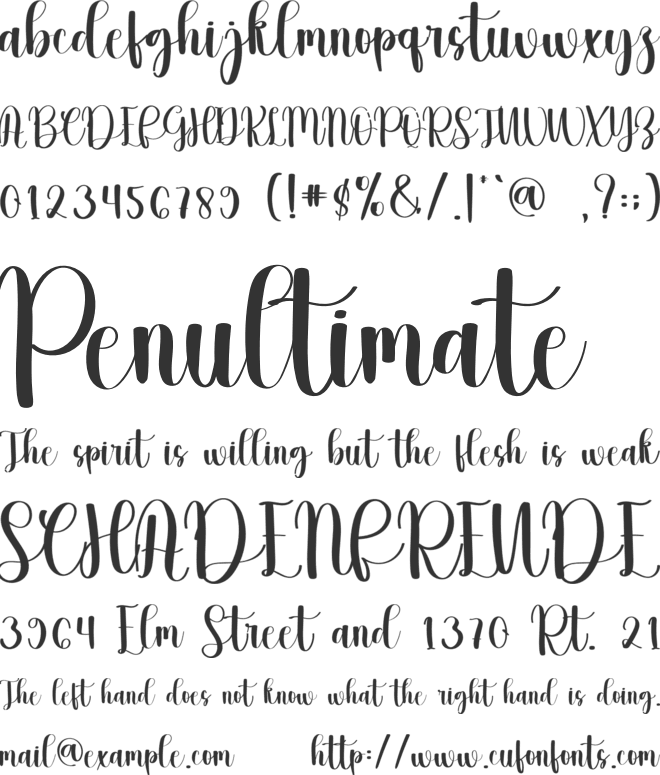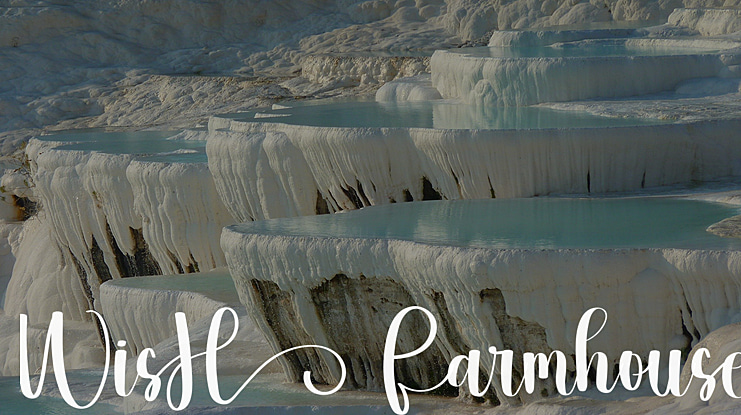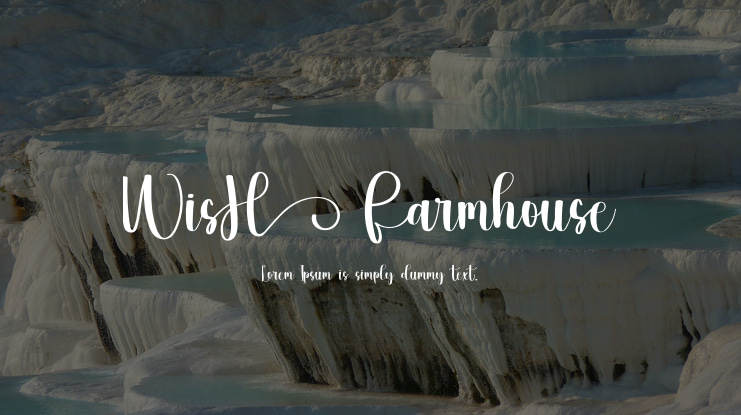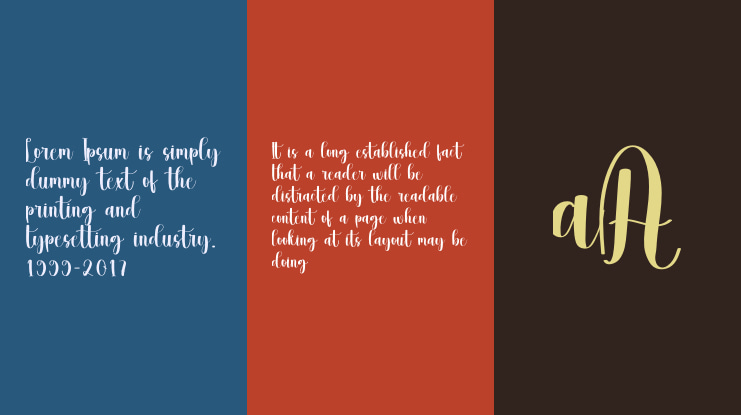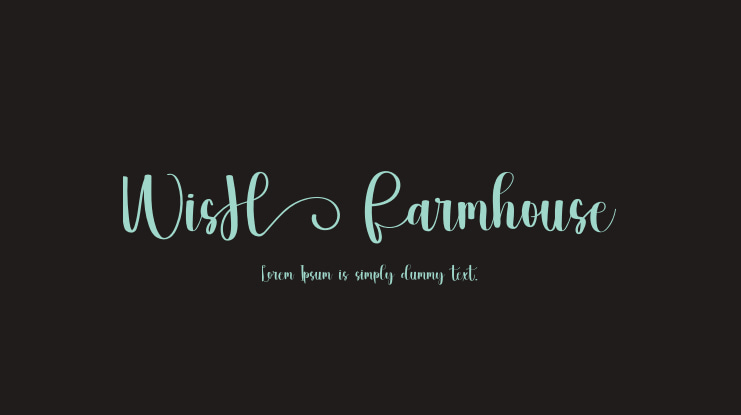
WisH Farmhouse Font
This is a relaxed and beautiful paint brush handwritten font. It can be used for various purposes such as logos, wedding invitations, headings, t-shirts, letterhead, signage, labels, news, posters, badges and so much more.